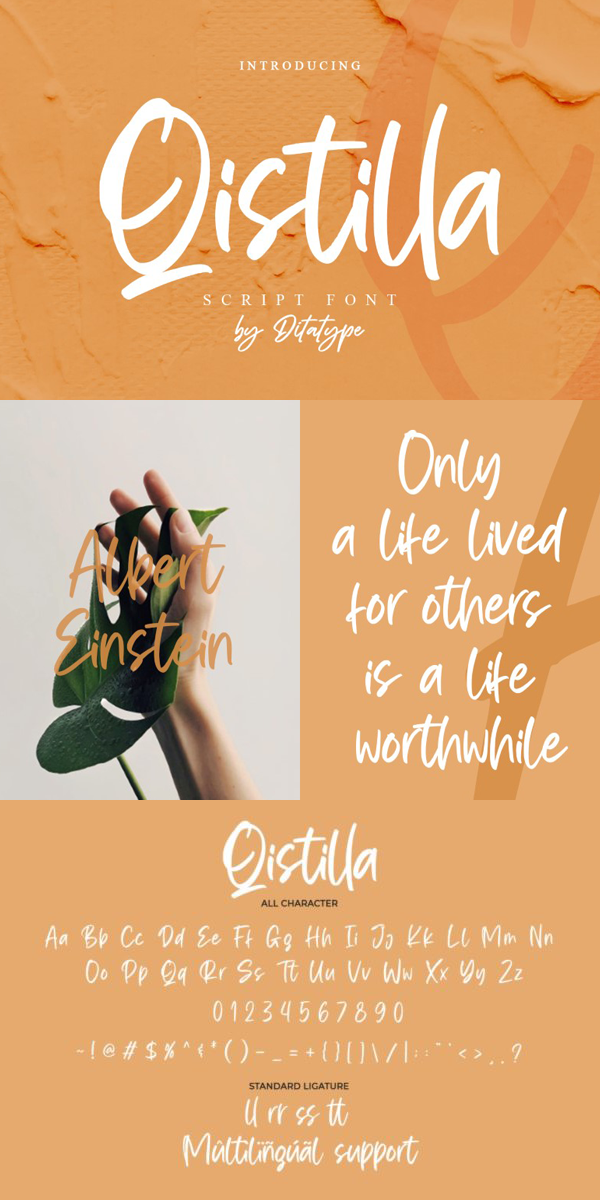
Qistilla Font
About Qistilla
Qistilla is a casual handwritten font. Made for any professional project branding that need a modern and attractive typeface. It is the best for logos, branding and quotes. Every letter has a unique and beautiful touch.
-Standart Ligatures